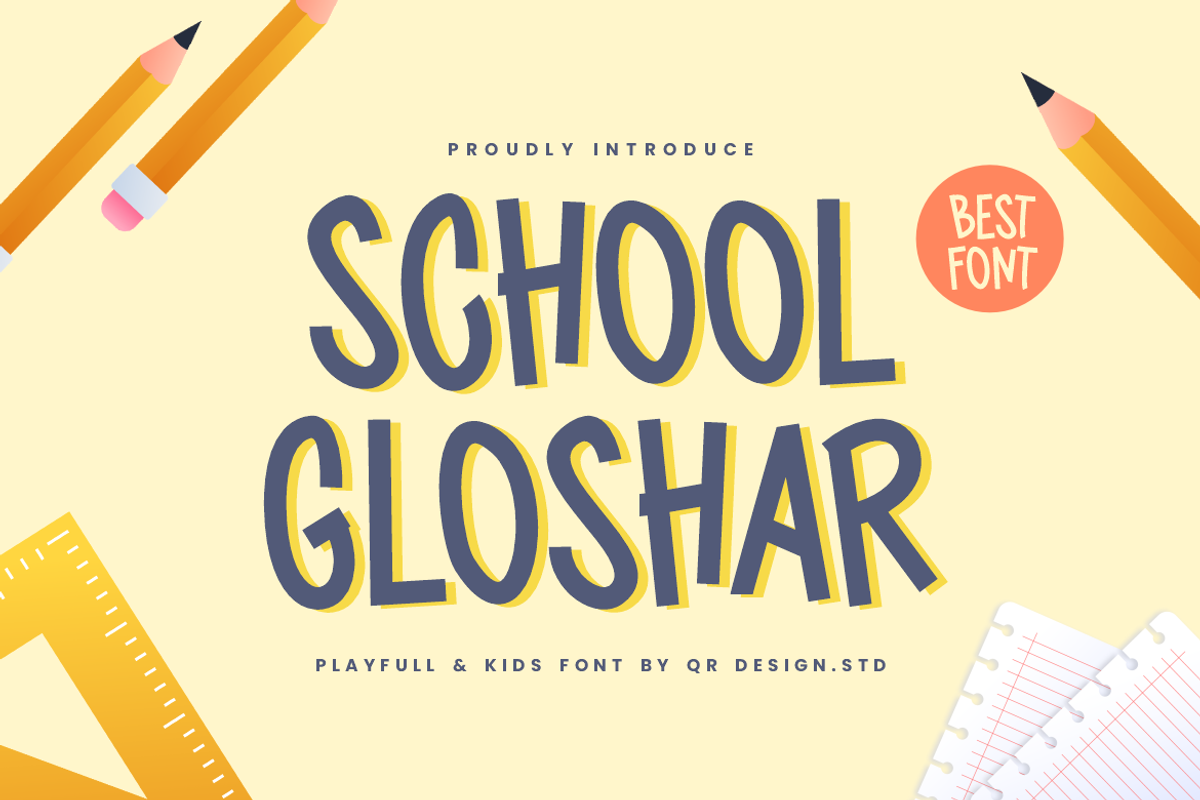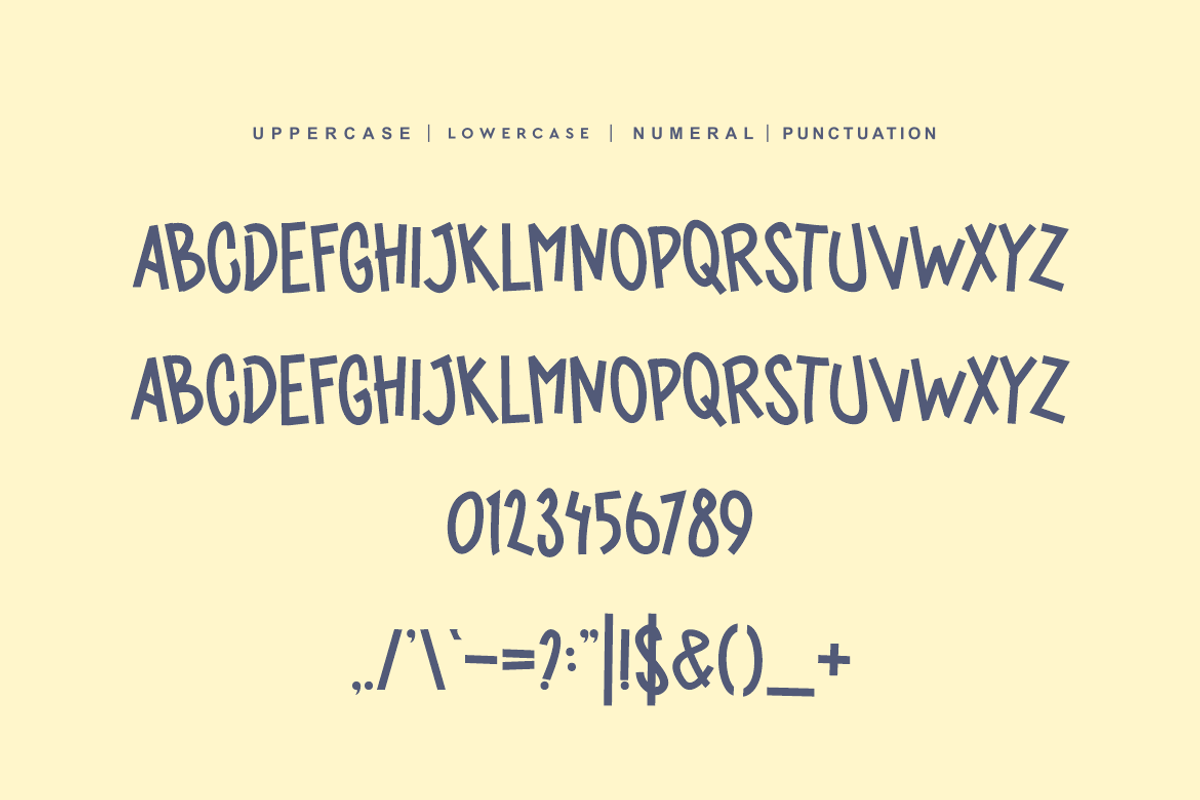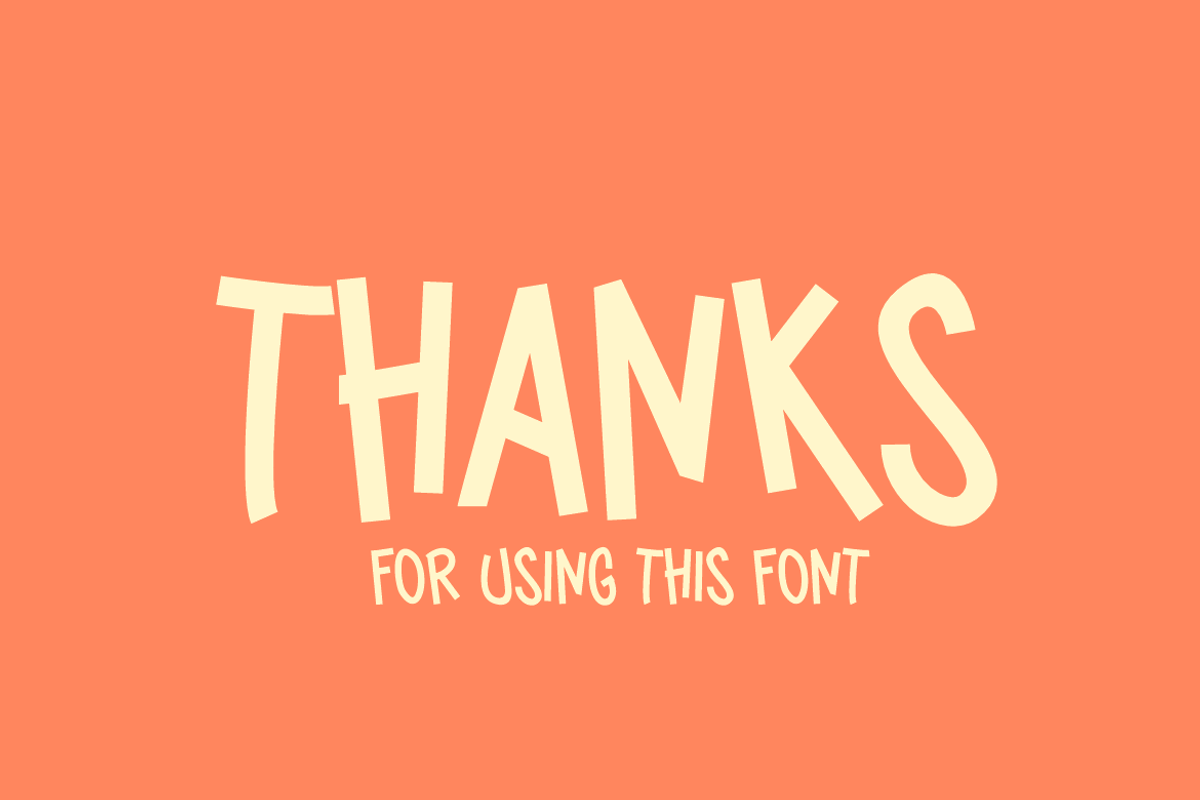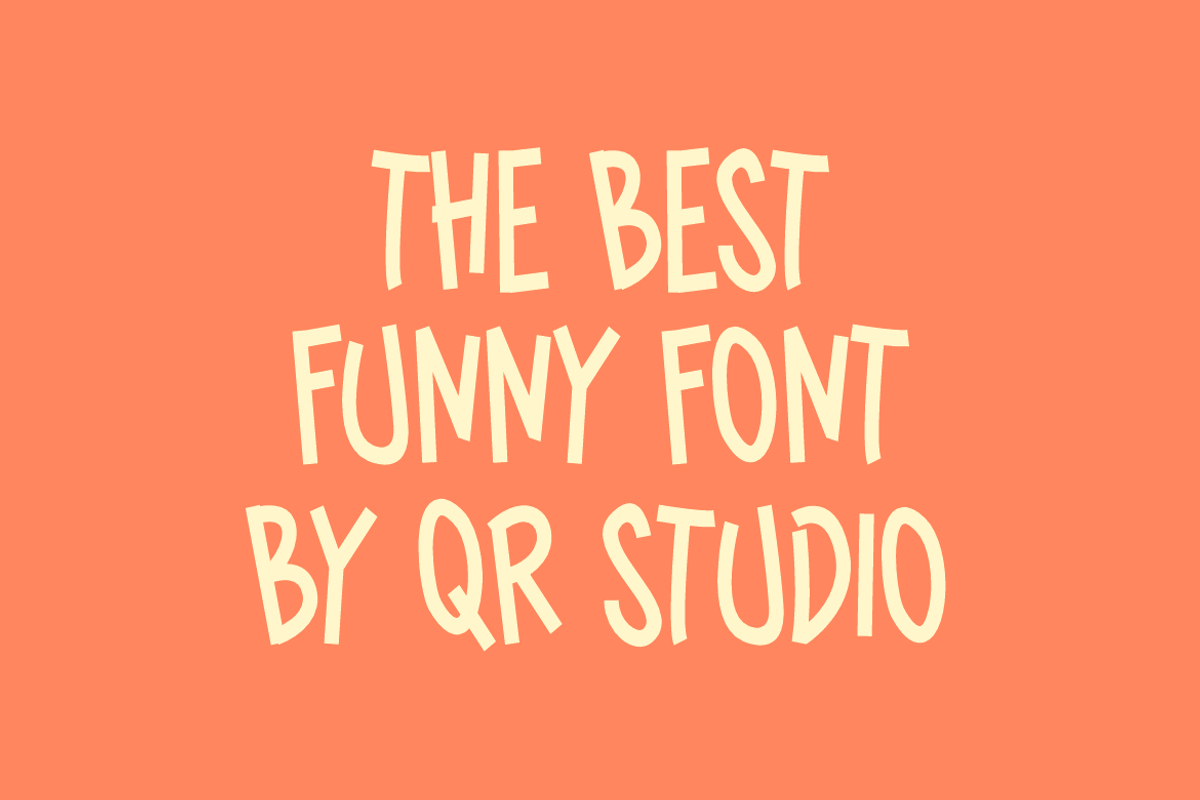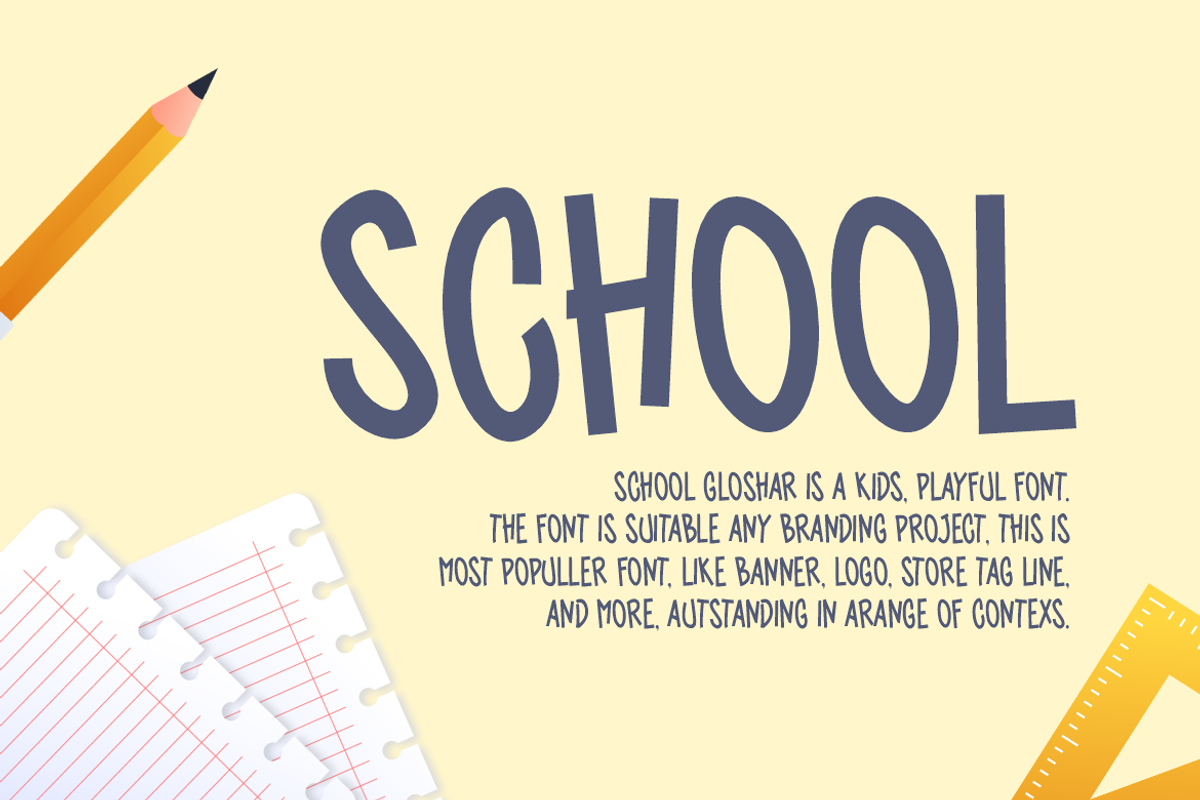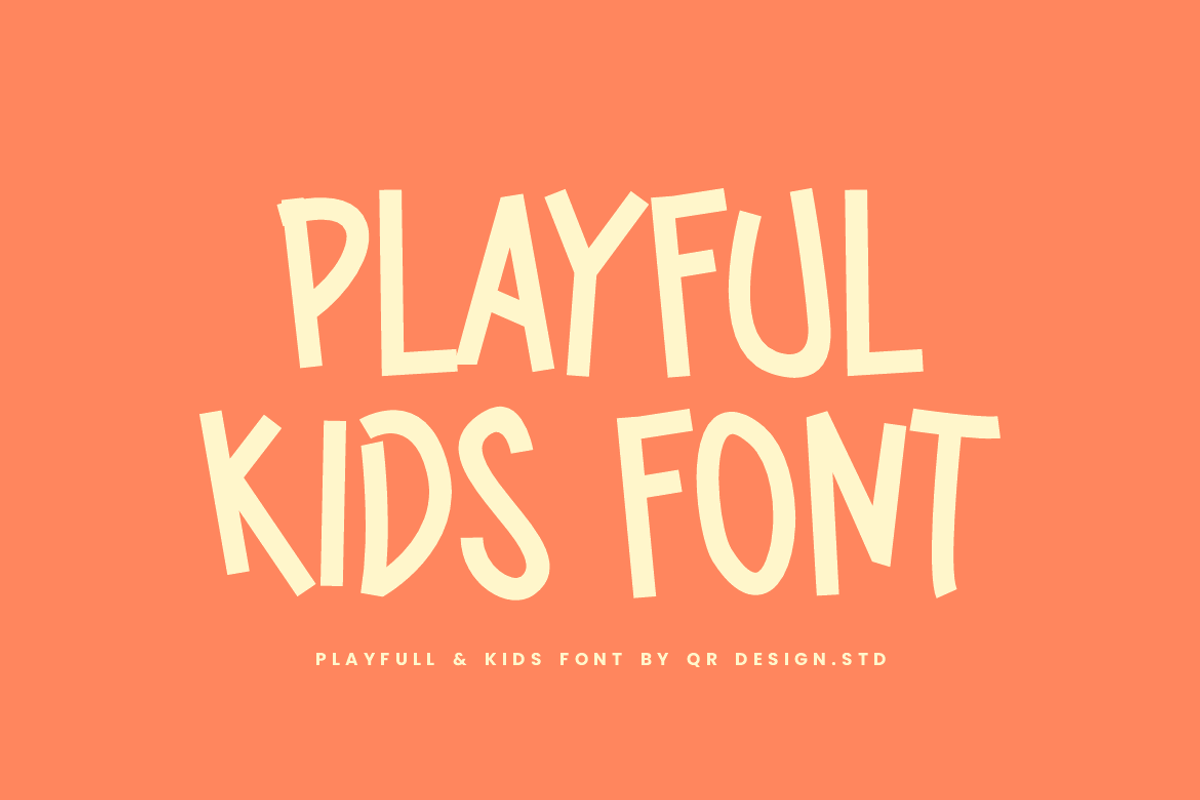
School Gloshar Font
School Gloshar Font is a hand drawn and authentic display font. The font is suitable for any branding project like poster, logo, sport, and many more. Outstanding in a wide range of contexts.